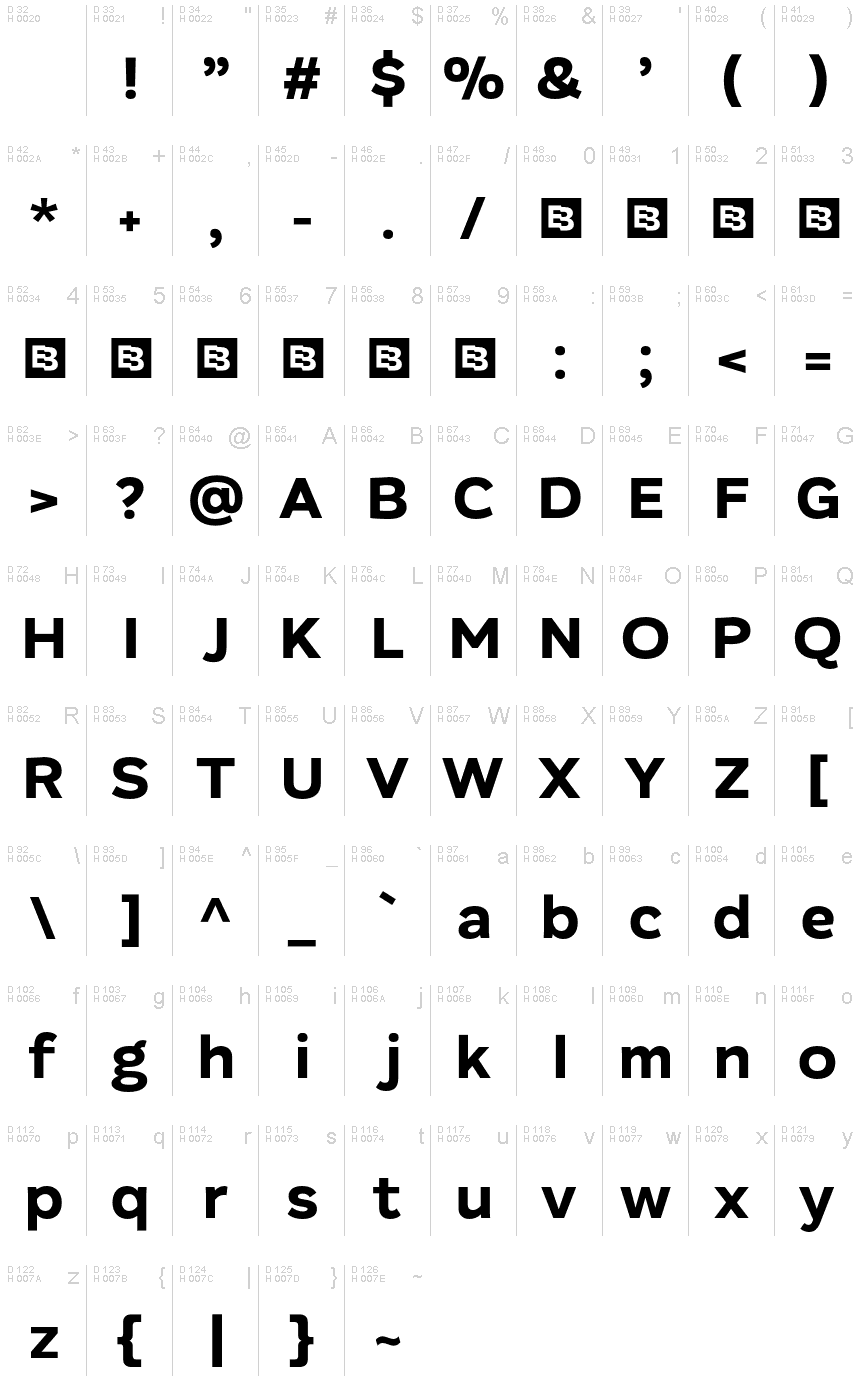
Plasto ExtraBold Expanded, designed by Eko Bimantara, is a striking sans-serif font with a semi-bold weight and expanded width.
Its bold and wide letterforms make it perfect for attention-grabbing headlines, logo designs, and signage projects. With its modern aesthetic and strong presence, Plasto ExtraBold Expanded adds a touch of confidence and professionalism to any design or branding endeavor. Whether you're creating bold advertising campaigns or contemporary website layouts, this font will ensure your message stands out with its unique visual appeal.